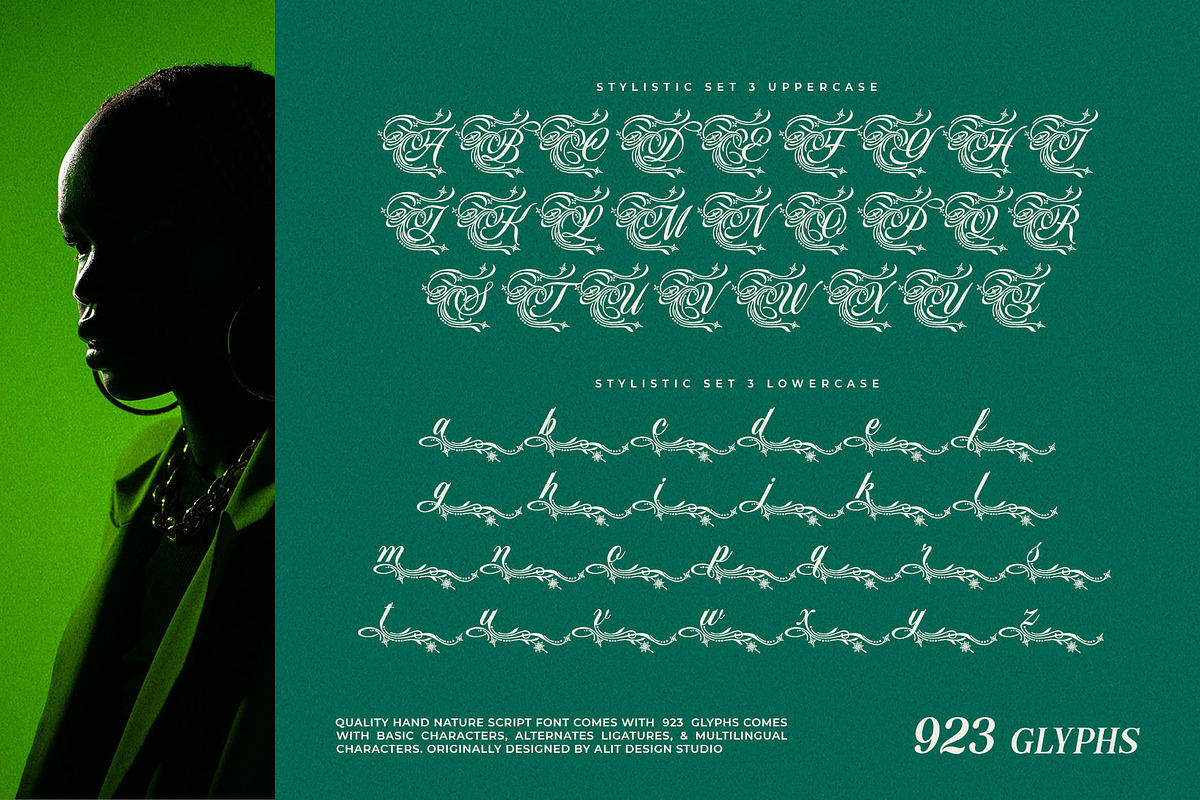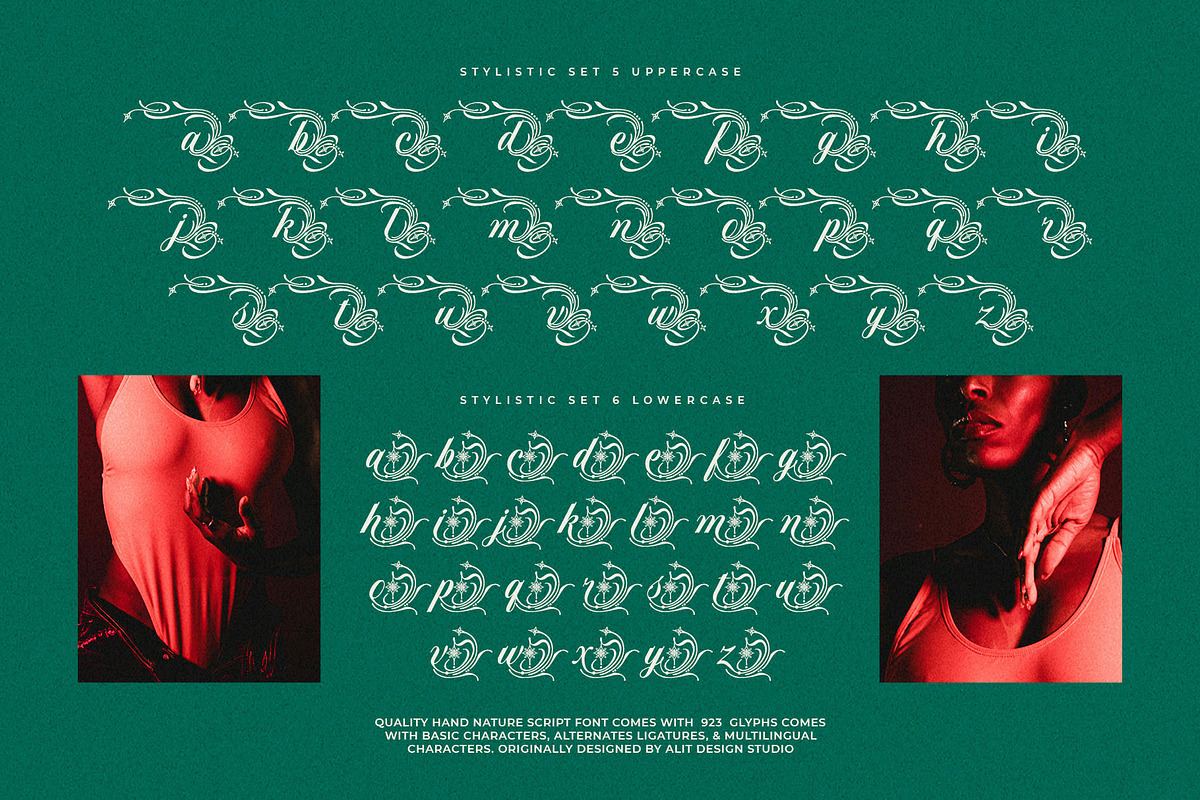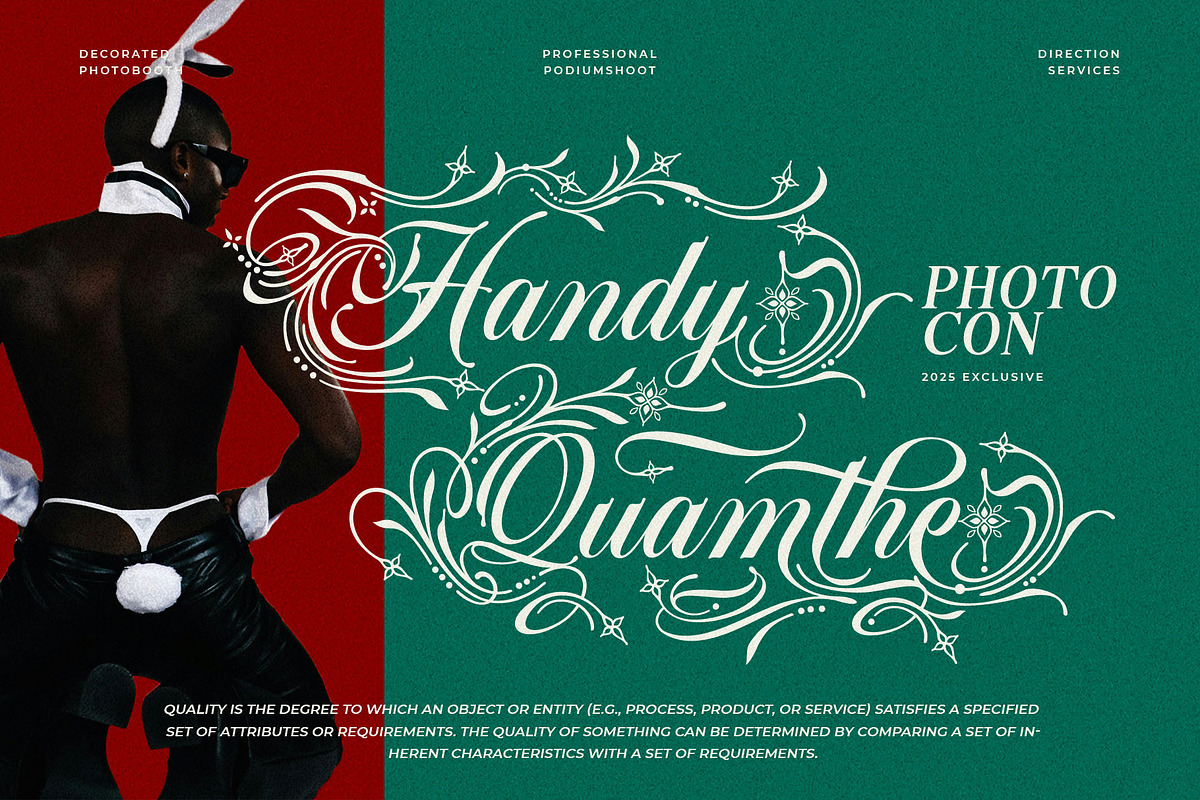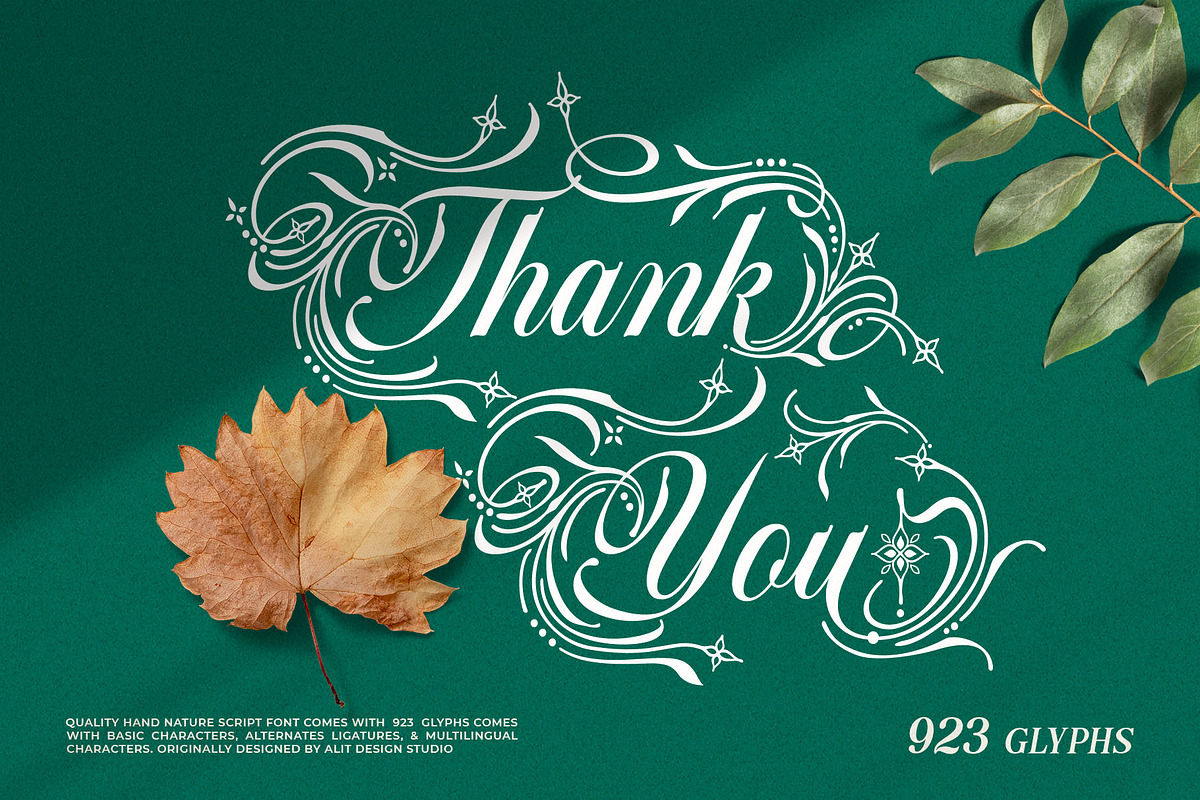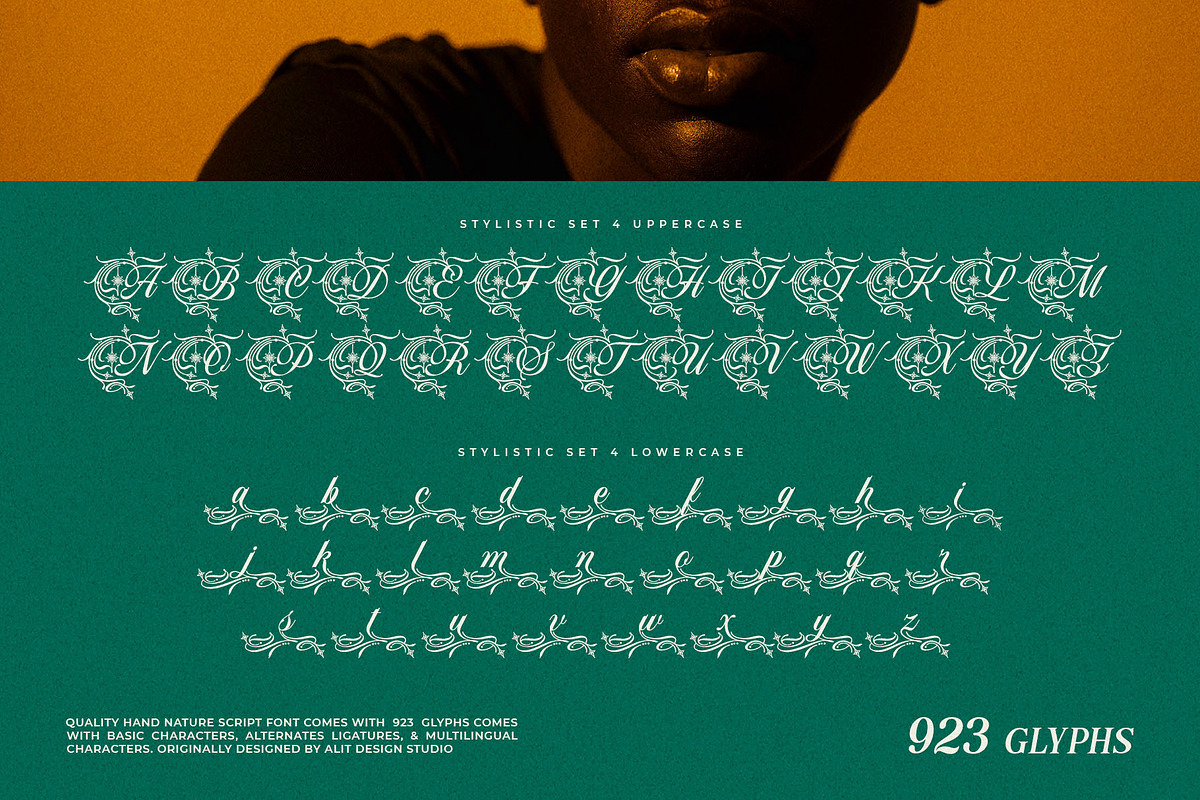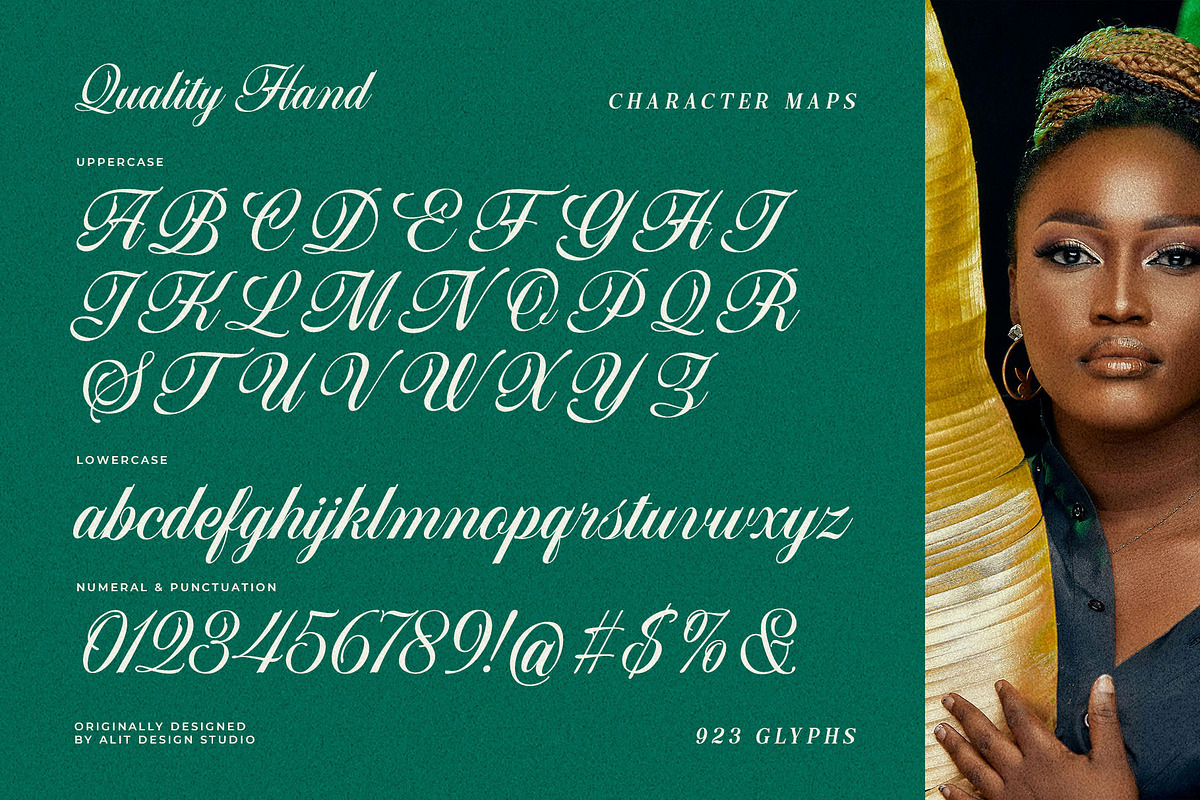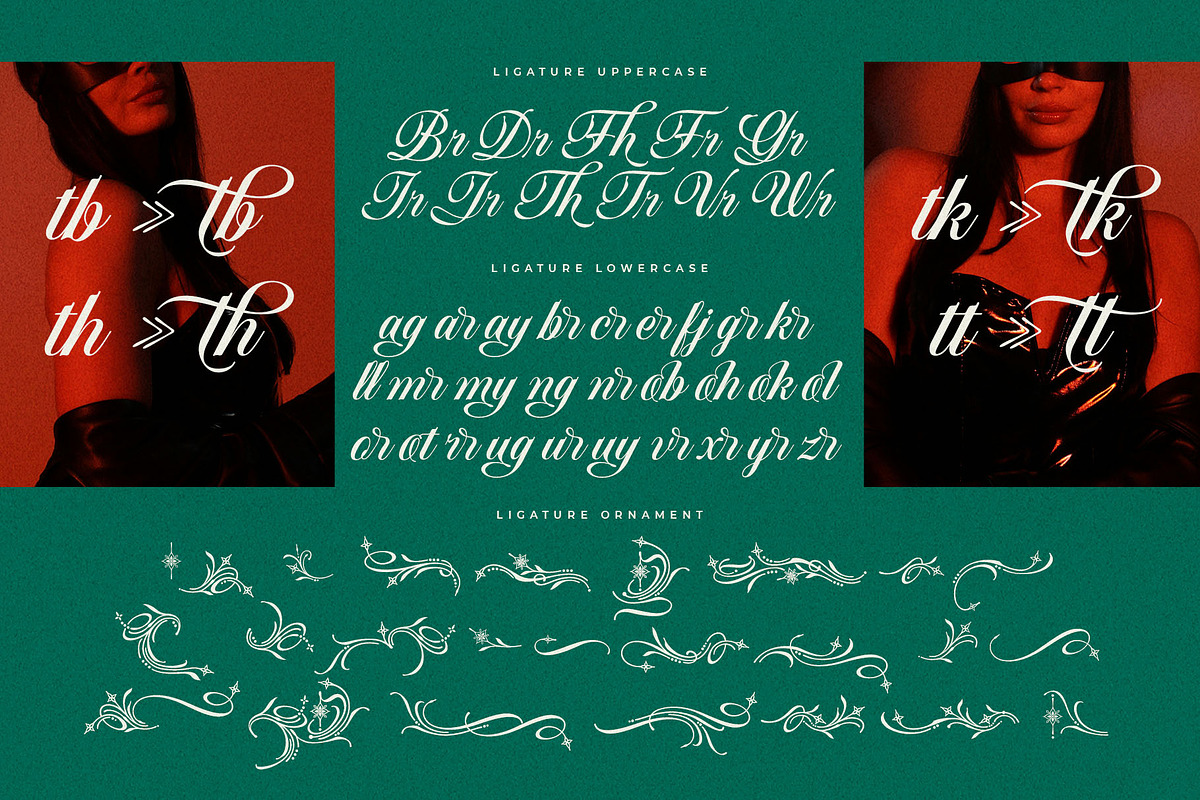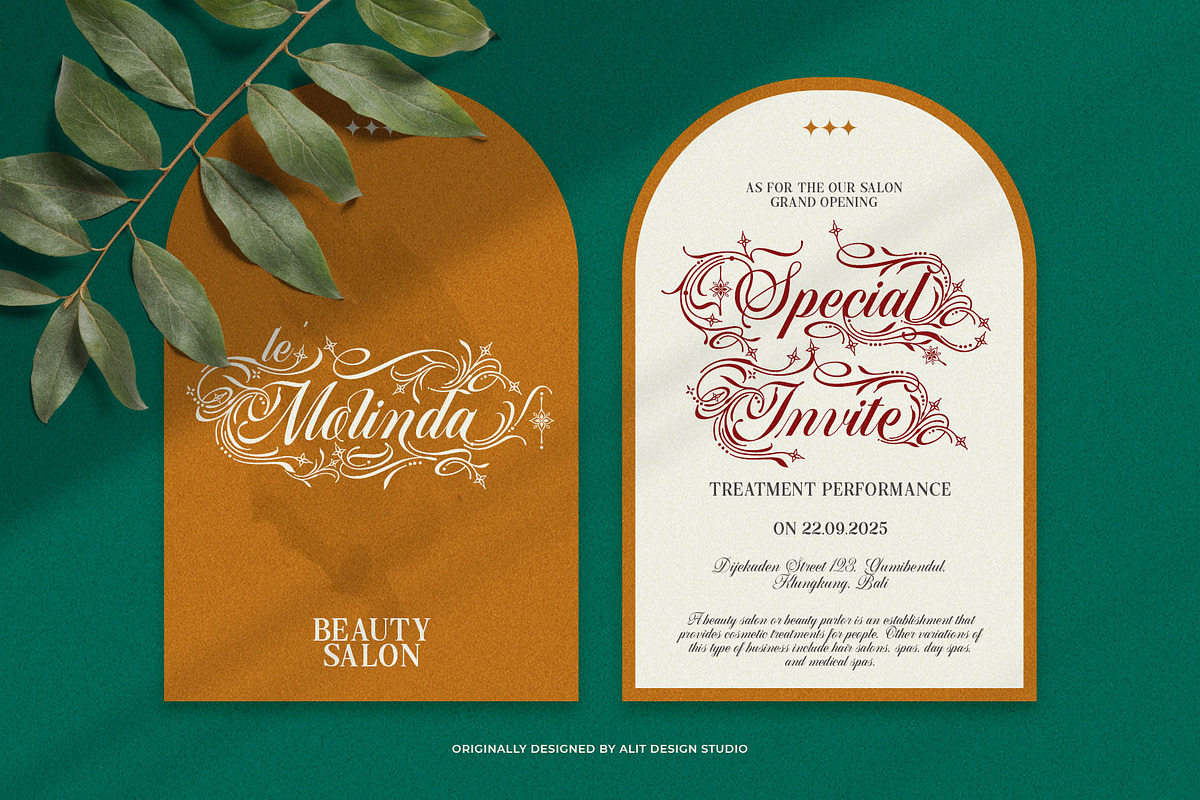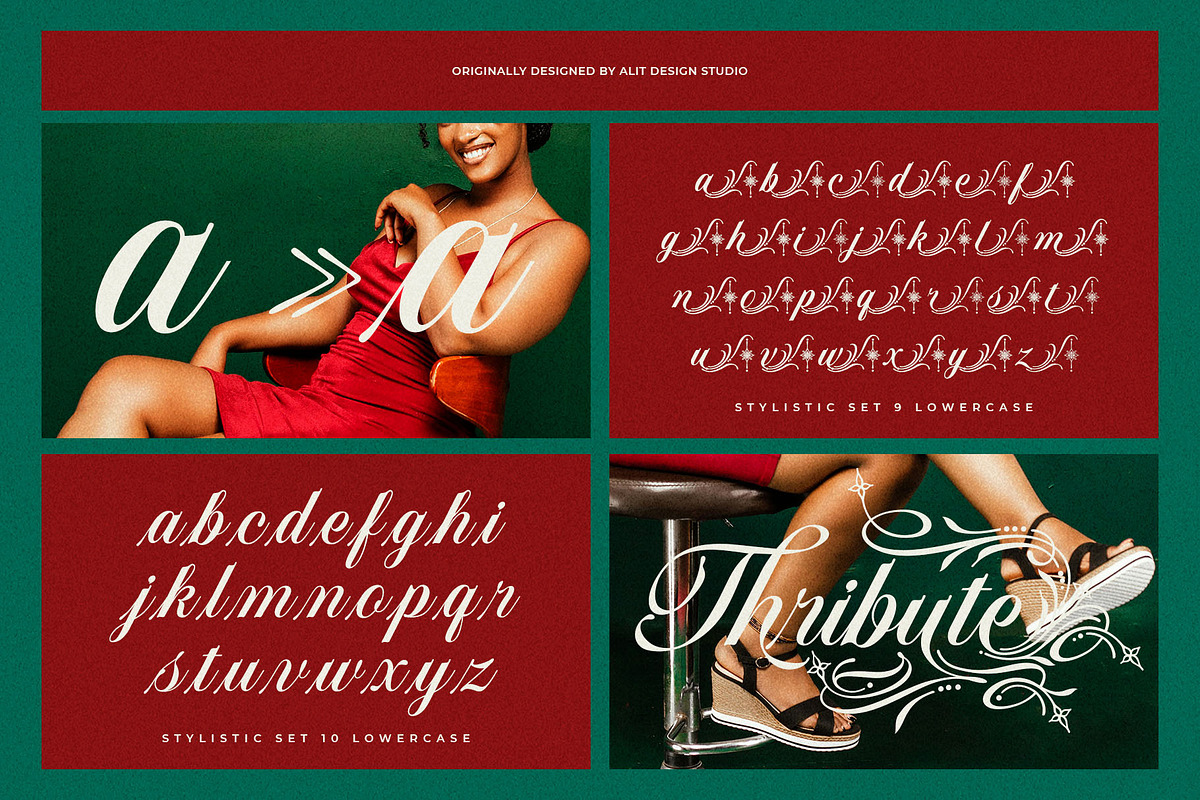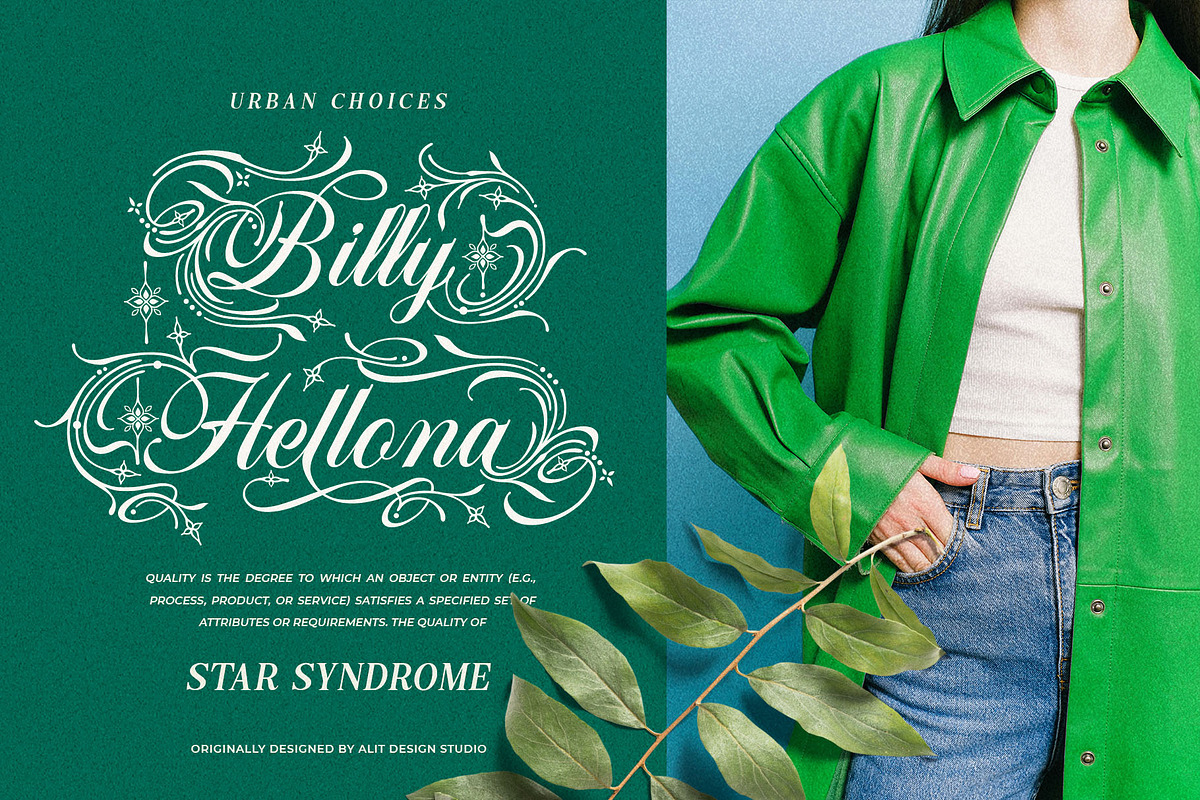
Quality Hand Typeface
Quality Hand An Elegant Nature Script
Step into a world of enchantment with Quality Hand, a breathtakingly elegant script font that blends the grace of handwritten calligraphy with the untamed beauty of nature. Designed by Alit Design Studio, this font is not just a collection of letters but an artistic toolkit for creating designs that whisper tales of mystical forests and dream-like fantasy realms.
Quality Hand flows with a natural, brushy texture, giving every word an authentic, handcrafted feel. Its true magic lies in its abundant decorative elements, where delicate leaves, vines, and floral motifs gracefully intertwine with the letterforms. Whether you're crafting a logo for a luxury brand or an invitation to a magical event, Quality Hand provides the elegance and wonder you need to captivate your audience.
With an astounding 923 glyphs, the possibilities are limitless. Dive into multiple stylistic sets to transform your text from a clean, classic script into a lush tapestry of natural ornamentation. This versatility ensures that every design is unique and perfectly tailored to your vision.
- Luxury Branding & Logos (Beauty Salons, Perfumeries, Boutiques)
- Enchanting Wedding Invitations & Stationery
- High-End Product Packaging
- Book Covers & Fantasy-Themed Projects
- Elegant Social Media Graphics & Quotes
- Magazine Headlines & Editorial Design
- Quality Hand Font: The complete font family with uppercase, lowercase, numerals, and punctuation.
- Extensive Stylistic Alternates: Multiple sets of characters, from subtly decorated to fully flourished, allowing for complete creative control.
- Ligatures: A wide range of natural-flowing ligatures to enhance the handwritten look.
- Multilingual Support: Comprehensive language support for broad usability.
- Bonus Dingbat & Swash Ornaments: A beautiful collection of standalone nature-inspired ornaments and swashes to perfectly complement your typography and complete your designs.
Let Quality Hand breathe life and sophisticated magic into your next project. Create something truly unforgettable.